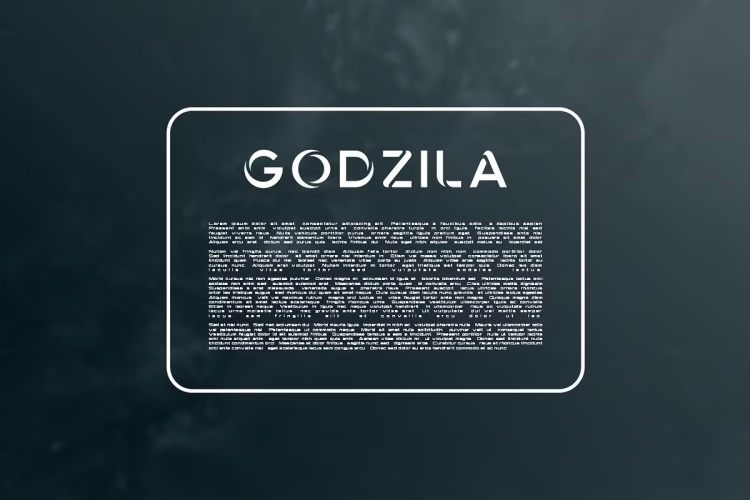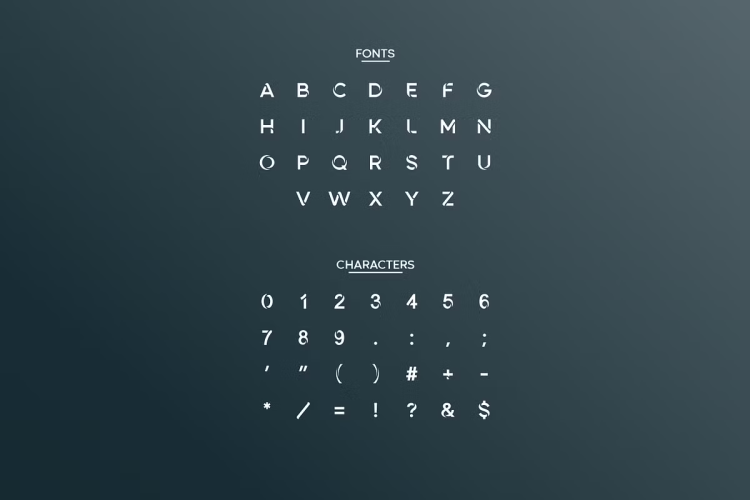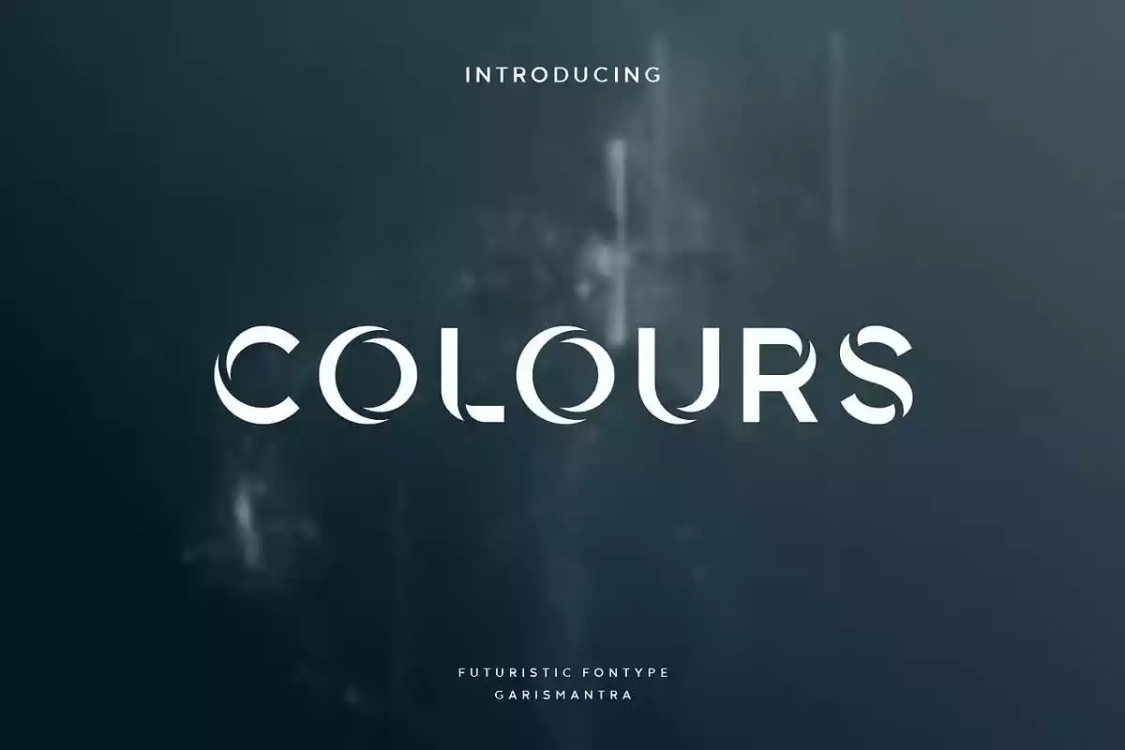
Colours Font
Colours is an exciting and futuristic font. The style of a ring separator, like 3D, makes it more flexible for various designs; of course, it will support all styles. Co…
Colours is an exciting and futuristic font. The style of a ring separator, like 3D, makes it more flexible for various designs; of course, it will support all styles. Colours is suitable for logo titles, branding, signatures, and design with technology themes and the future because this font is very sophisticated. Wait, moreover, take this timeless font.
Where Colours Font works best
Colours Font is built for size: event posters, hero headlines and billboard-style layouts.
High contrast display type like Colours Font reads instantly in thumbnails and motion graphics.
What is Colours Font good for?
Colours Font is a Display Fonts typeface tagged Branding, Classic, Display, Display Fonts. It works well for headlines, logos, posters, social media graphics and branding projects that need a distinctive display fonts look.